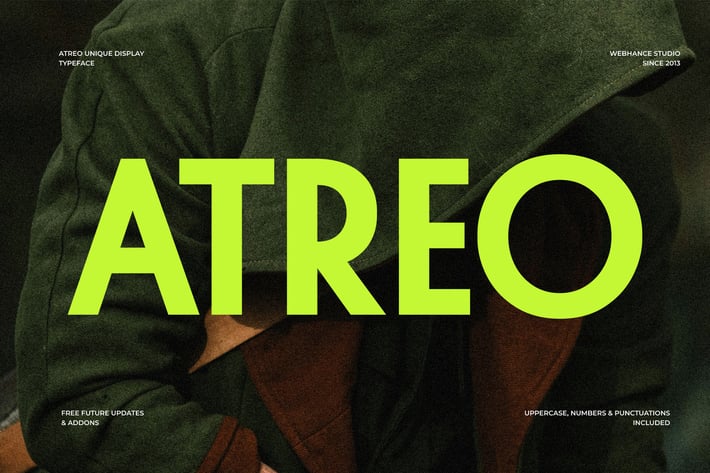
Atreo - Display Sans-Serif Font family
The Atreo font family is a contemporary sans-serif typeface designed for versatility and elegance. With its clean lines, balanced proportions, and minimalist aesthetic, Atreo ensures high readability across various mediums. Whether used for branding, editorial design, UI/UX interfaces, or print, this font brings a refined, world-class look to your projects.